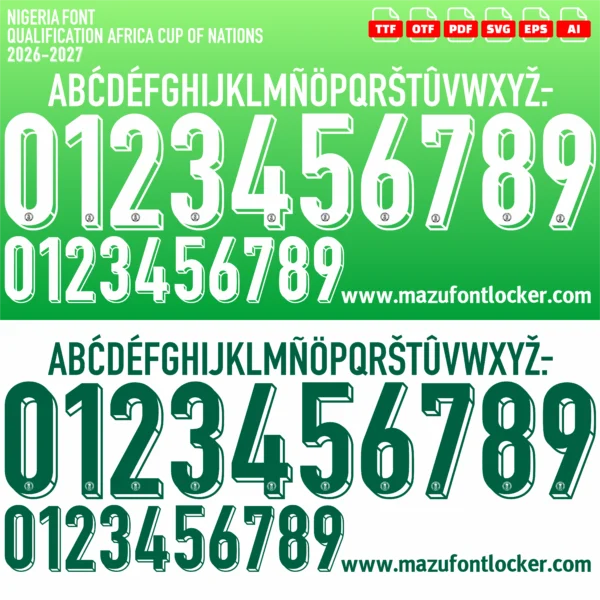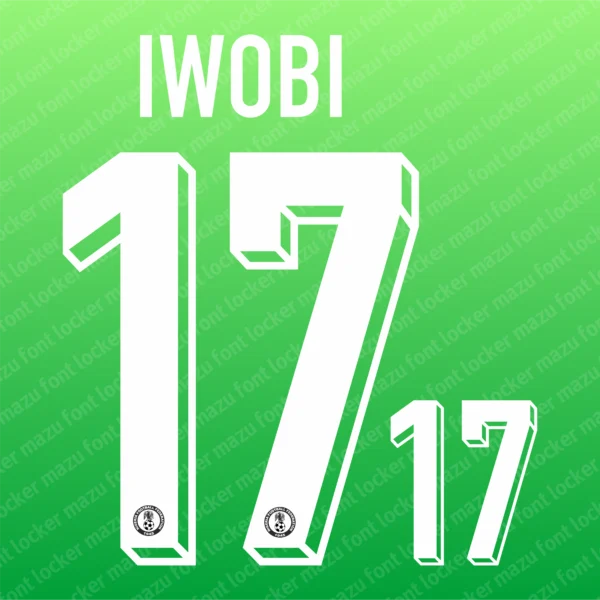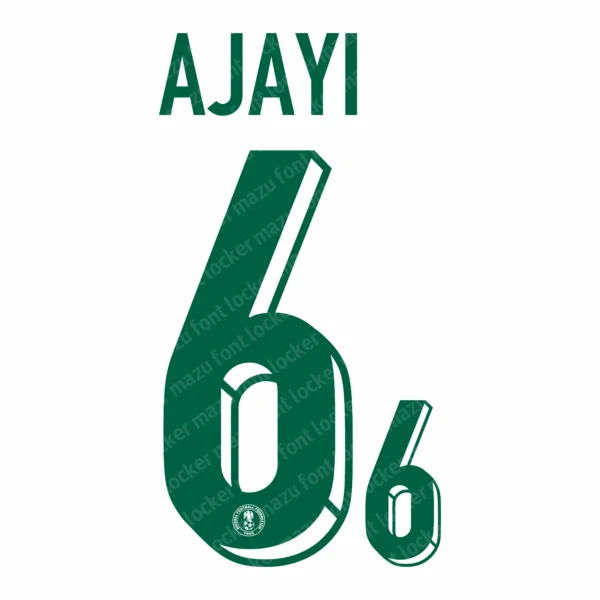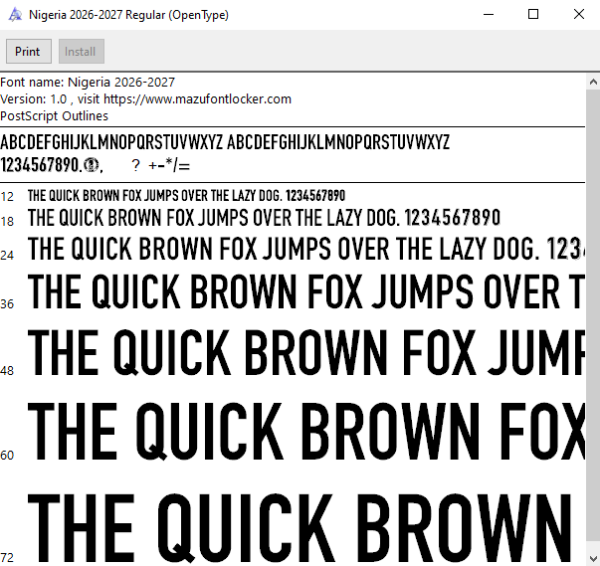
Nigeria 2026-2027 Font Vector – Authentic Super Eagles Typeface
The Nigeria 2026-2027 Font Vector is a premium typeface that captures the official match lettering style associated with the Nigeria national team during the 2026 FIFA World Cup qualifiers and campaign. This high-quality vector font kit reflects the bold, dynamic, and fearless typography that represents the pride, passion, and rich football heritage of the Super Eagles.
Designed for professional designers and passionate Nigeria fans, the Nigeria 2026-2027 Font Vector delivers perfect authenticity for creating realistic jersey mockups, fan merchandise, matchday posters, social media graphics, and African football content. It pairs beautifully with the iconic green and white home kit featuring the famous Super Eagles crest.
Why Choose Nigeria 2026-2027 Font Vector
This font stands out because of its sharp vector precision and strong national identity. Every letter and number is crafted to match the exact style used by the Super Eagles during the 2026-2027 period. Whether you are making realistic kit templates or exciting Super Eagles content, the Nigeria 2026-2027 Font Vector gives your designs that authentic Nigerian look.
The letterforms in the Nigeria 2026-2027 Font Vector are tall, bold, and highly readable. The strokes have a strong, clean weight with excellent edge definition that looks powerful on the back of jerseys while maintaining classic Nigerian spirit and modern strength.
- Full uppercase A–Z and numbers 0–9 in authentic Nigeria World Cup 2026 style
- Nigeria crest glyph – Press the “:” (colon) symbol to insert the Nigeria crest
- Multilingual Latin character support including diacritics
- Create highly realistic Nigeria 2026-2027 home and away jersey mockups with accurate lettering
- Design stunning match posters, score graphics, and squad announcements
- Produce custom Nigeria merchandise with the 2026 aesthetic
- Includes the exact crest glyph placement used under player numbers
Nigeria 2026 World Cup Campaign
The Super Eagles showed their trademark energy, flair, and fighting spirit throughout the 2026 FIFA World Cup qualification campaign. Although they did not qualify for the final tournament, Nigeria delivered passionate performances full of technical brilliance and the never-say-die attitude that defines Nigerian football.
Veteran stars and exciting emerging talents from the domestic league and European diaspora united in the quest to return Nigeria to football’s biggest stage. The campaign reinforced Nigeria’s status as one of Africa’s football powerhouses in CAF and on the global stage.
The Nigeria 2026-2027 Font Vector is an independently designed typeface package. It is carefully crafted to replicate the official shirt lettering style used during the 2026 World Cup qualification period. This font kit is perfect for creative projects, fan edits, nostalgic jersey designs, and custom football graphics.